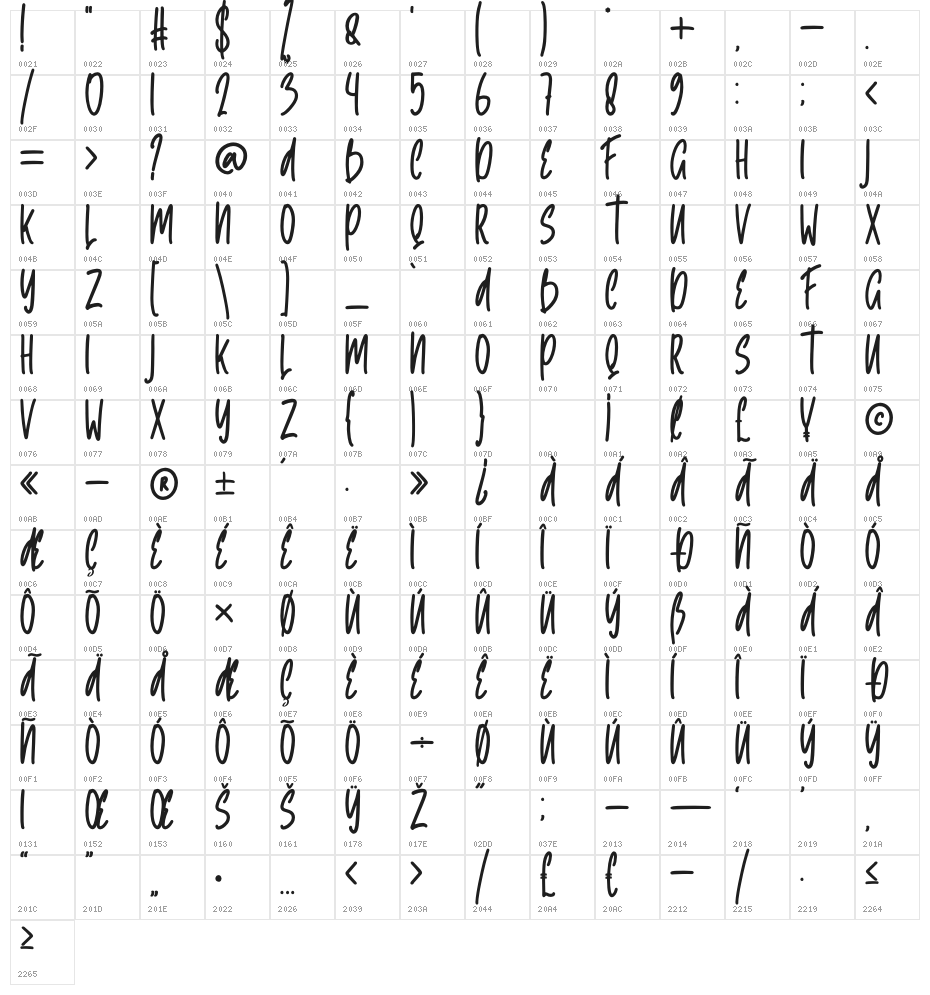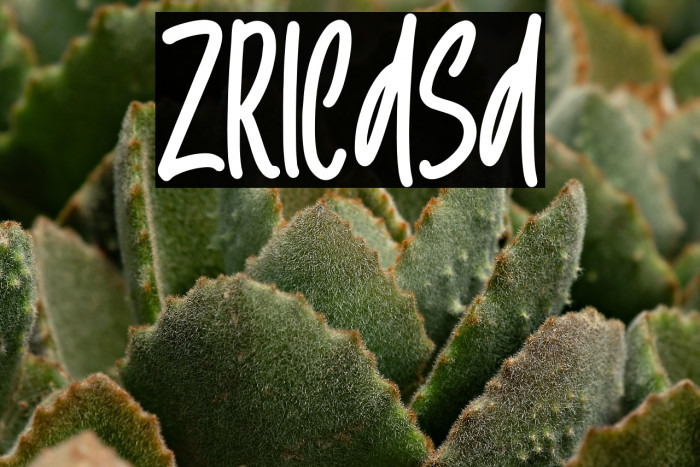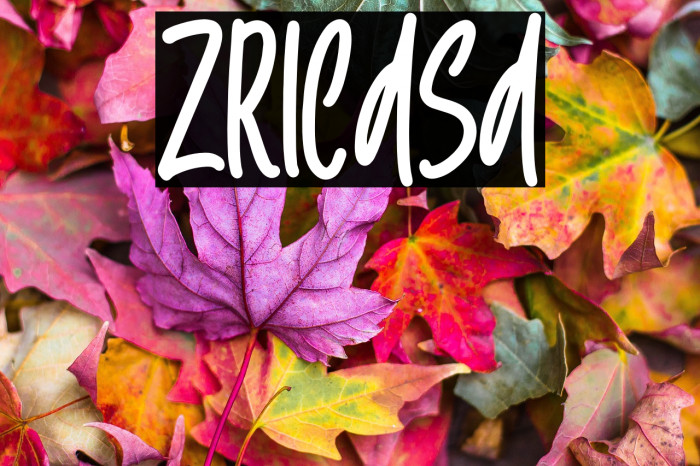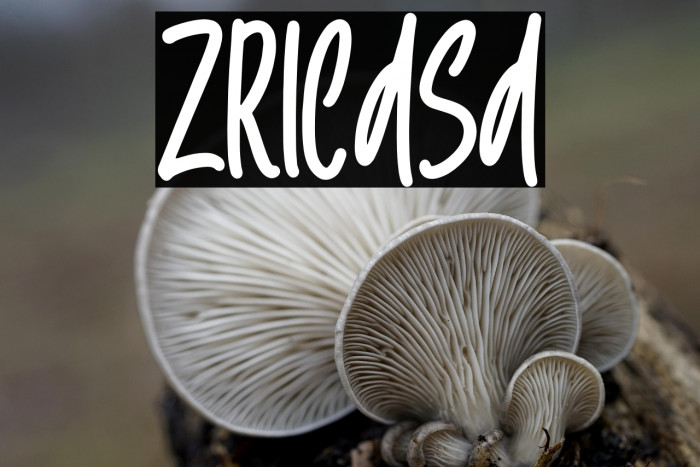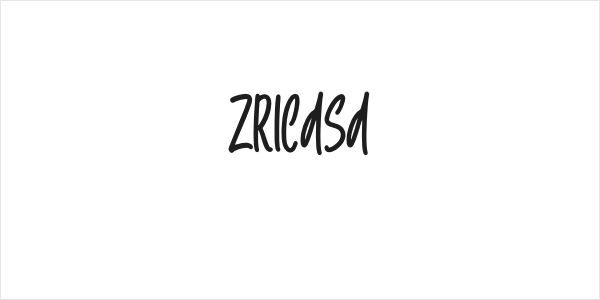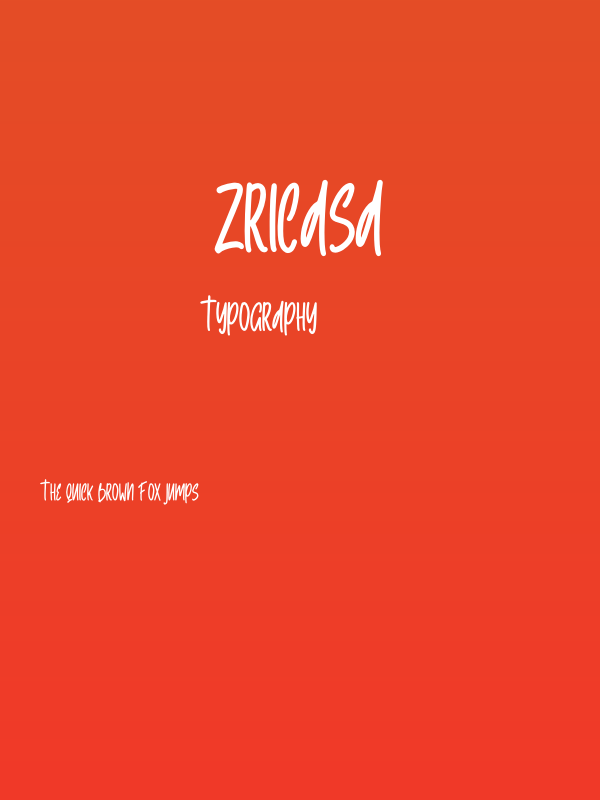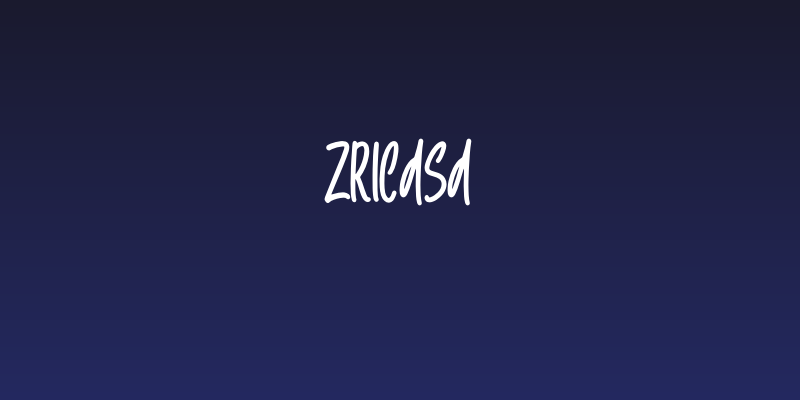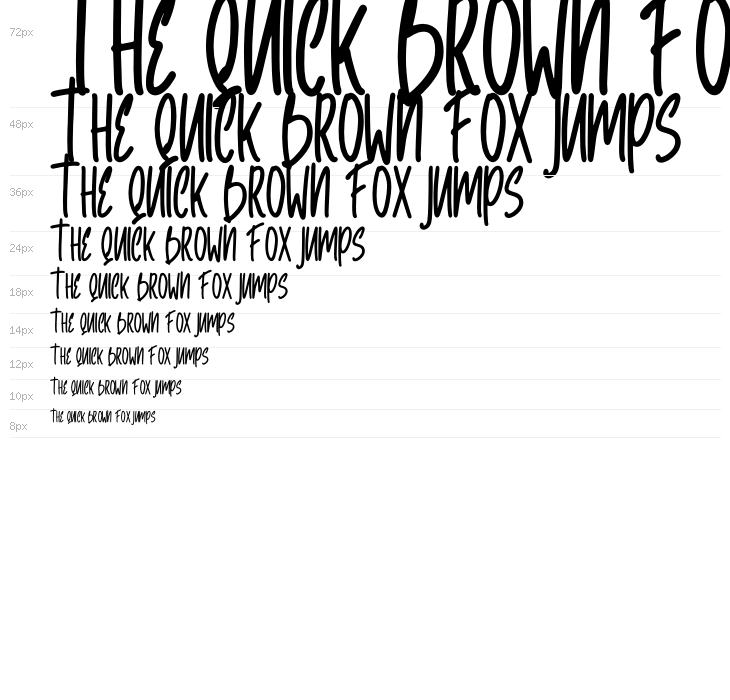
Zricasa Font
Zricasa Description
This font exhibits a bold and expressive handwritten style, characterized by its tall, narrow letters and dynamic strokes. The uppercase and lowercase letters maintain a consistent height, contributing to a cohesive appearance. The numbers and special characters follow the same stylistic approach, ensuring uniformity across all elements. The font's energetic and informal nature makes it ideal for projects that require a personal touch or a sense of spontaneity. Its unique design is both eye-catching and legible, making it suitable for a variety of creative applications.
| Proposed Projects | Ideal for greeting cards, posters, branding, and social media graphics. |